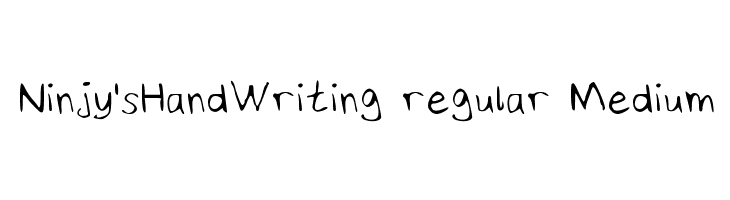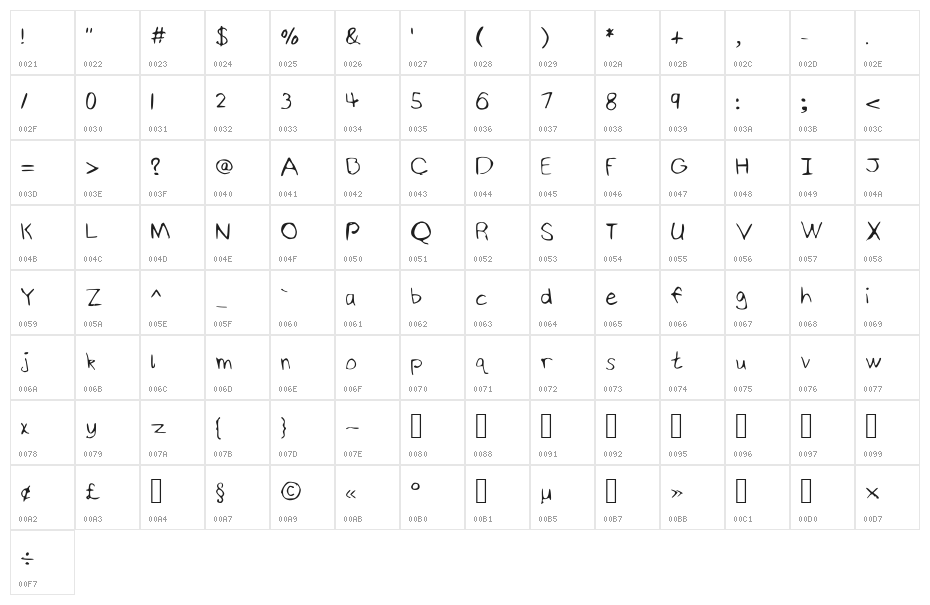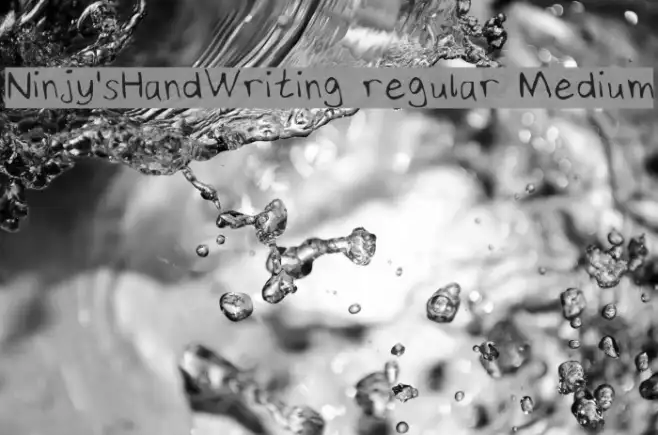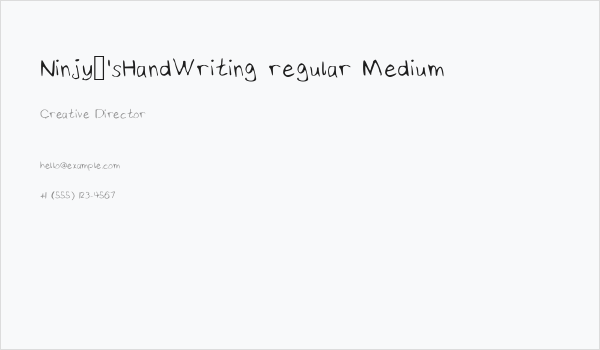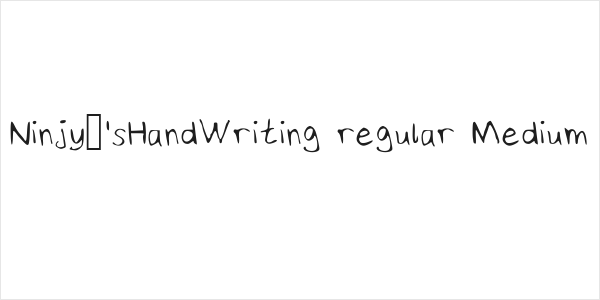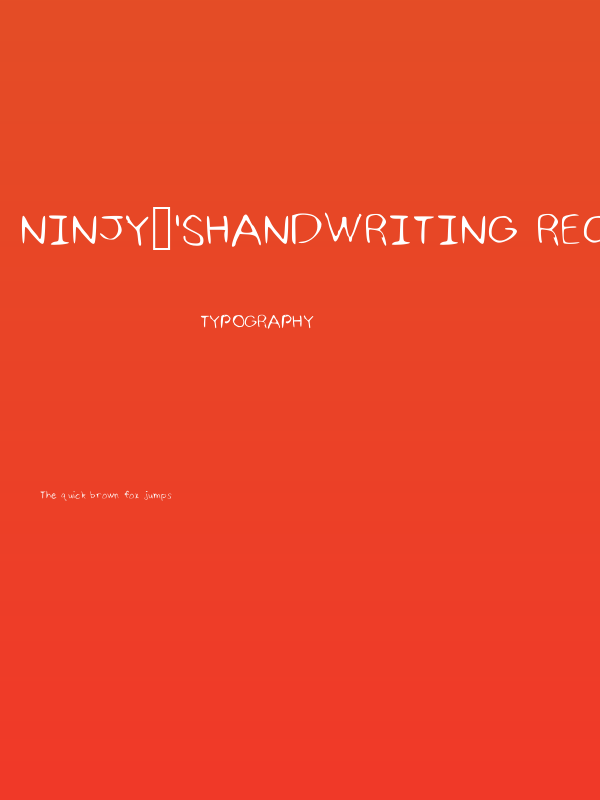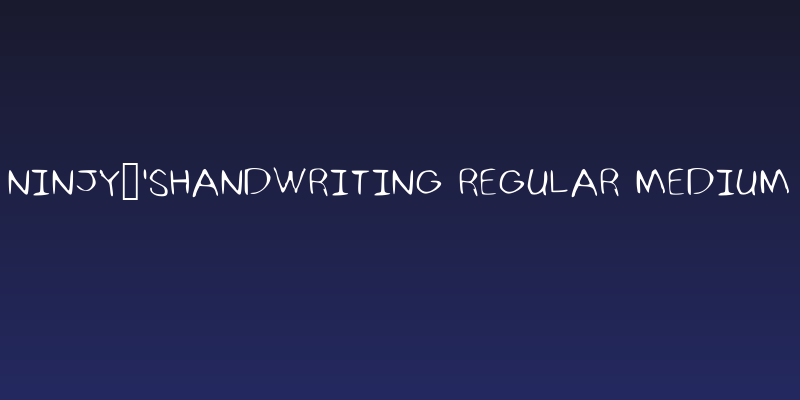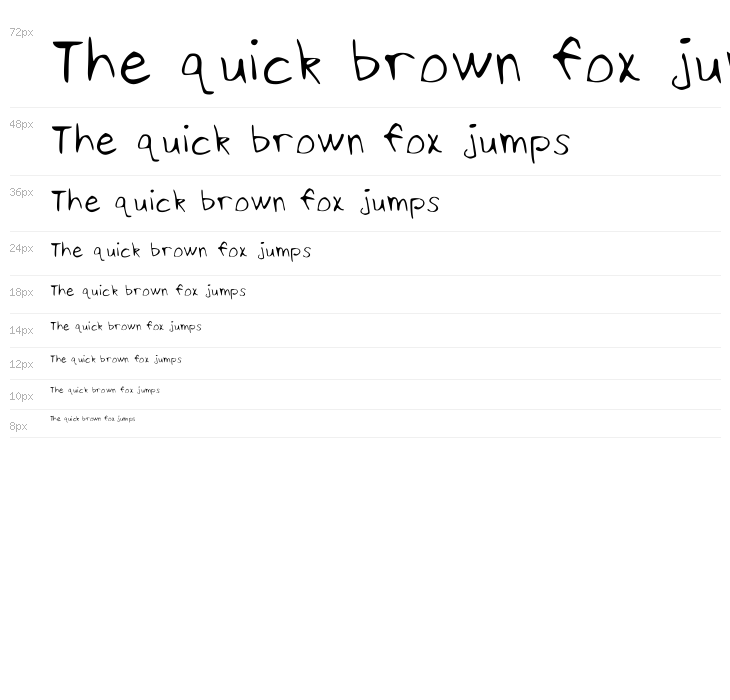
Ninjy'sHandWriting regular Medium Font
Ninjy'sHandWriting regular Medium Description
This font exudes a playful and casual handwritten style, characterized by its irregular and organic letterforms. Each character appears as if it was drawn with a marker, offering a personal and informal touch. The uppercase letters are bold and slightly uneven, while the lowercase letters maintain a consistent flow with a slight slant, adding to the handwritten feel. The numerals are quirky and match the overall style, making them suitable for creative projects. Special characters are included, maintaining the same playful aesthetic. This font is perfect for projects that require a personal, friendly, and approachable look.
| Proposed Projects | Ideal for greeting cards, children's books, casual branding, and social media graphics. |